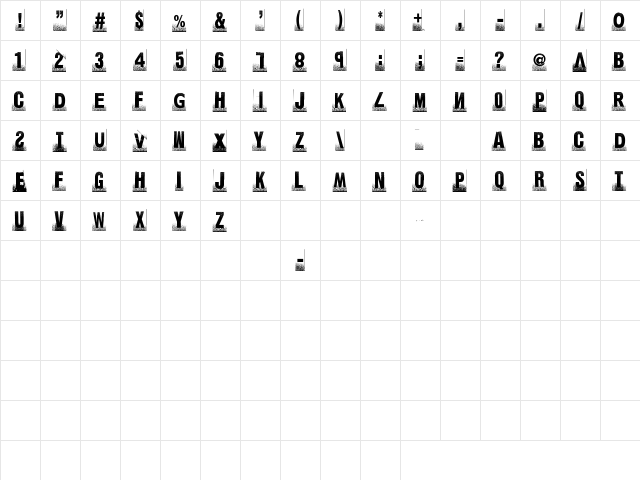
ghettomarquee Regular
| Designer | Kirk Shelton |
Design Context for ghettomarquee Typeface
ghettomarquee is a composed and adaptable typeface that performs quietly and consistently across a wide range of design contexts.
Pro Tip: Pair ghettomarquee with a font of contrasting weight or personality to build a more expressive typographic hierarchy.